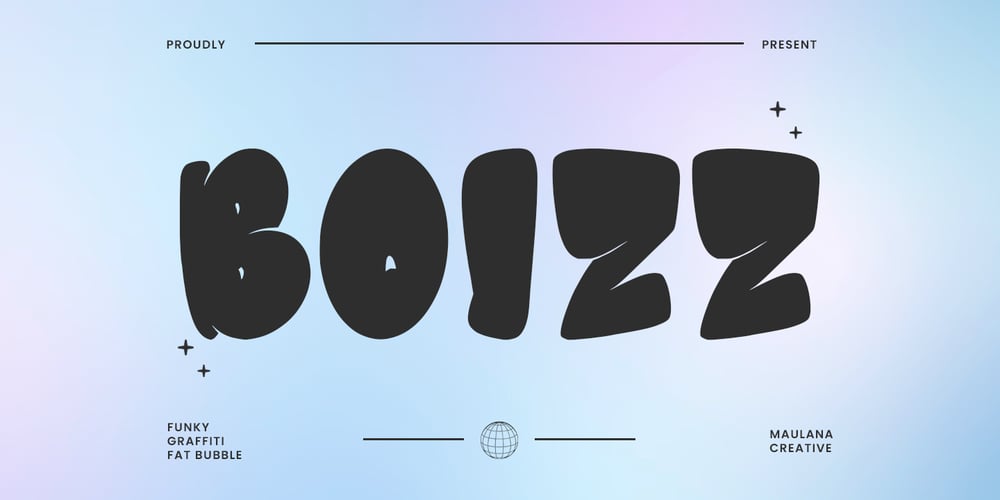
MC Boizz
MC Boizz font
MC Boizz Font Family was designed by Gilang Maulana and published by Maulana Creative. MC Boizz contains 1 styles and family package options. Boizz graffiti bubble display typeface. Bold stroke, fun character with a bit of ligatures and alternates. To give you an extra creative work. Boizz graffiti display typeface support multilingual more than 100+ language. This font is good for logo design, Social media, Movie Titles, Books Titles, a short text even a long text letter and good for your secondary text font with script or serif. Make a stunning work with Boizz graffiti display typeface. Cheers, Maulana Creative